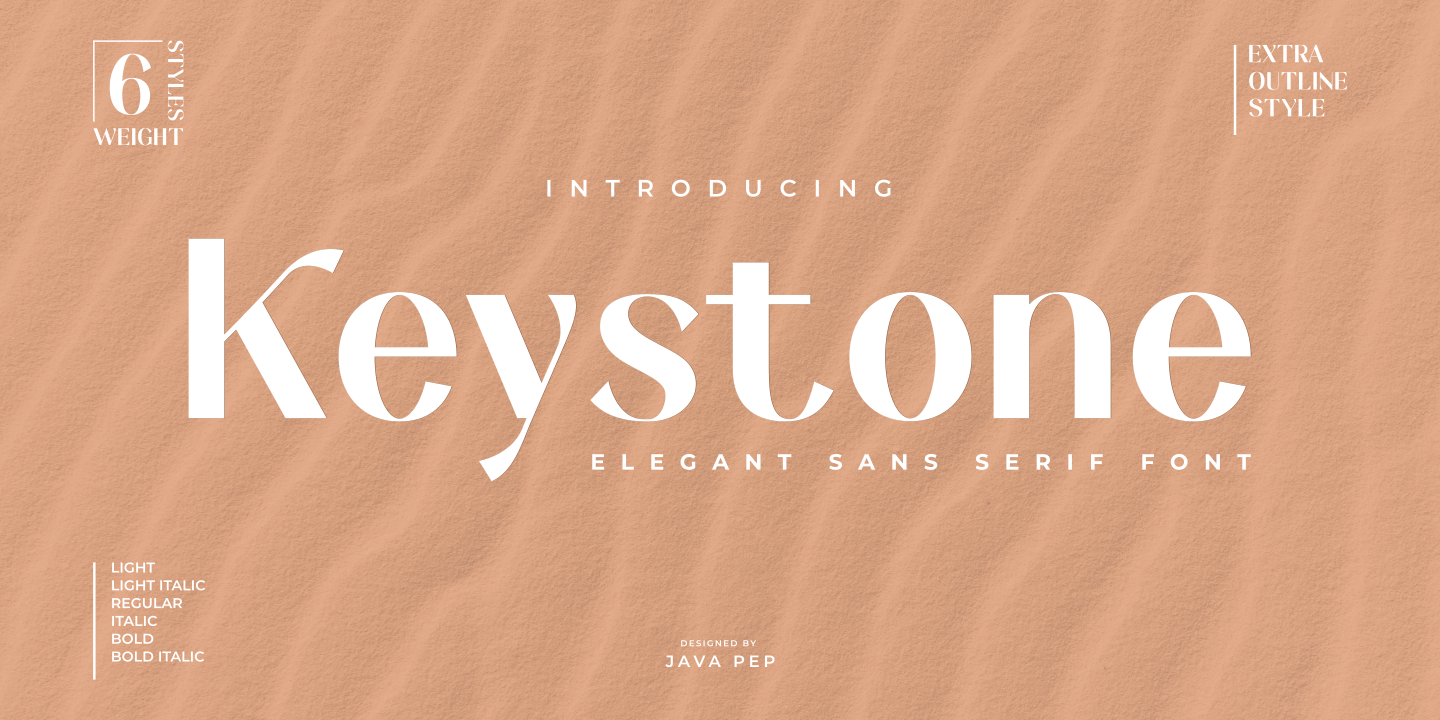
Keystone Font is perfect for architectural firm branding, construction company logos, engineering consultancy signage, foundation specialist marketing, structural design presentations, building contractor identities, real estate development materials, and solid infrastructure communications.
Keystone Font is exciting because it embodies the fundamental strength and structural integrity of architectural excellence through its solid character design that represents the essential foundation upon which great buildings and lasting achievements are constructed. Its robust styling and foundational appeal make it the perfect choice for brands that want to communicate reliability, stability, and the cornerstone principles of exceptional construction.
Keystone Font family includes multiple structural variations: Keystone Light, Keystone Regular, Keystone Medium, Keystone Bold, Keystone Heavy, and Keystone Foundation, along with architectural decorative elements and construction symbols, providing designers with comprehensive tools for creating authentic architectural and construction-themed brand experiences.
When exploring architectural typography solutions, Keystone Font Free Download emerges as the premier choice for designers working on construction and engineering projects that require genuine structural sophistication and foundational appeal. This solid typeface embodies the essence of architectural strength while offering the technical precision that contemporary construction companies and engineering firms require. The font's structural character and building authenticity create immediate connections with audiences who value solid construction and reliable engineering.
Construction professionals consistently rely on Keystone Font for projects requiring authentic architectural sophistication and powerful structural appeal. Its expertly engineered letterforms feature building-inspired influences that work exceptionally well in both large-scale construction site signage and intimate architectural portfolio presentations. The font's ability to convey foundation strength and structural integrity while maintaining strong brand recognition makes it invaluable for comprehensive identity systems in the construction, architecture, and engineering sectors.
Whether you're developing construction company identities, creating architectural firm marketing materials, or designing engineering project presentations, Keystone Font delivers the authentic structural character and foundational appeal that resonates with audiences who appreciate solid construction and reliable engineering. Its architectural significance and robust design ensure your projects communicate cornerstone expertise while maintaining contemporary professional standards that attract modern clients seeking dependable construction and engineering services.